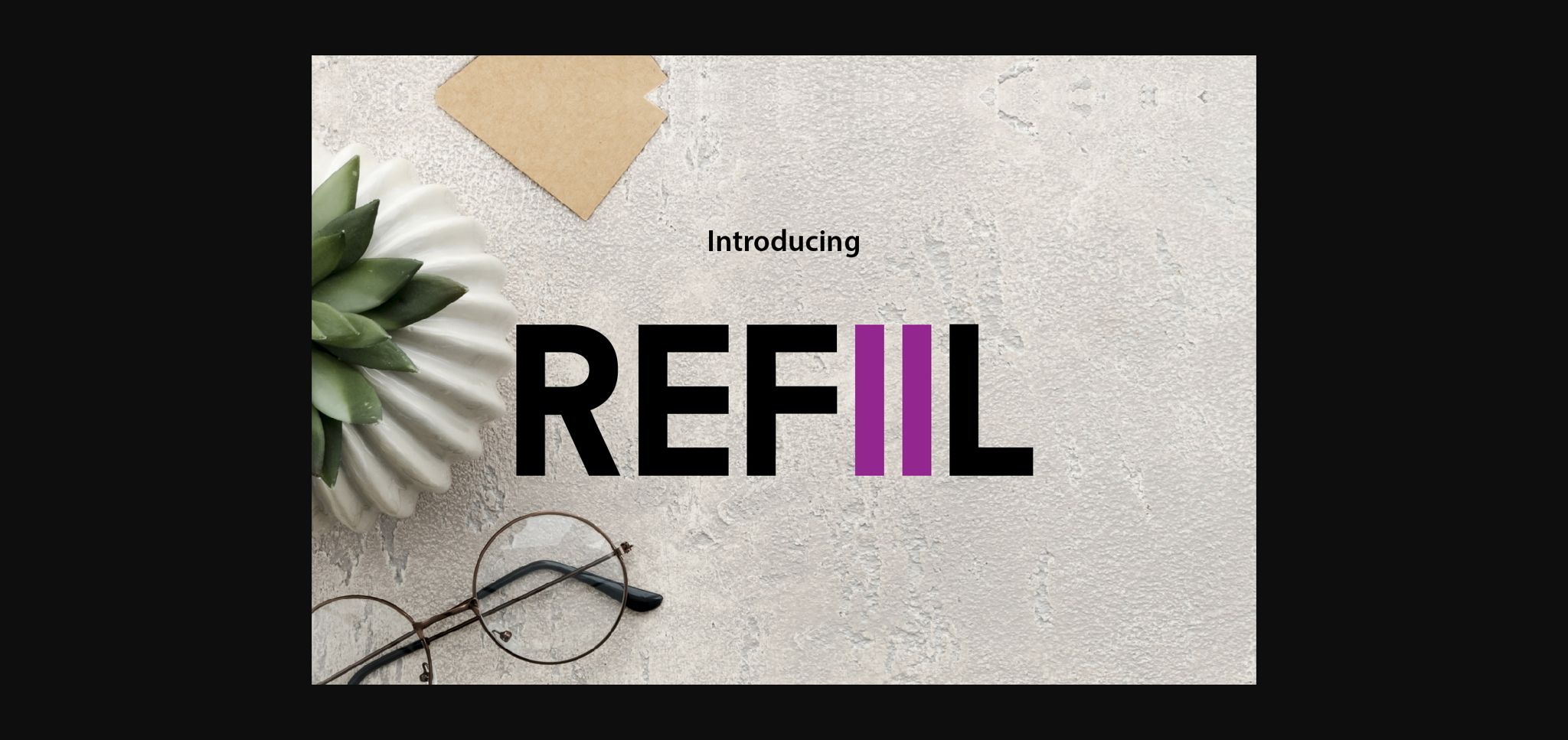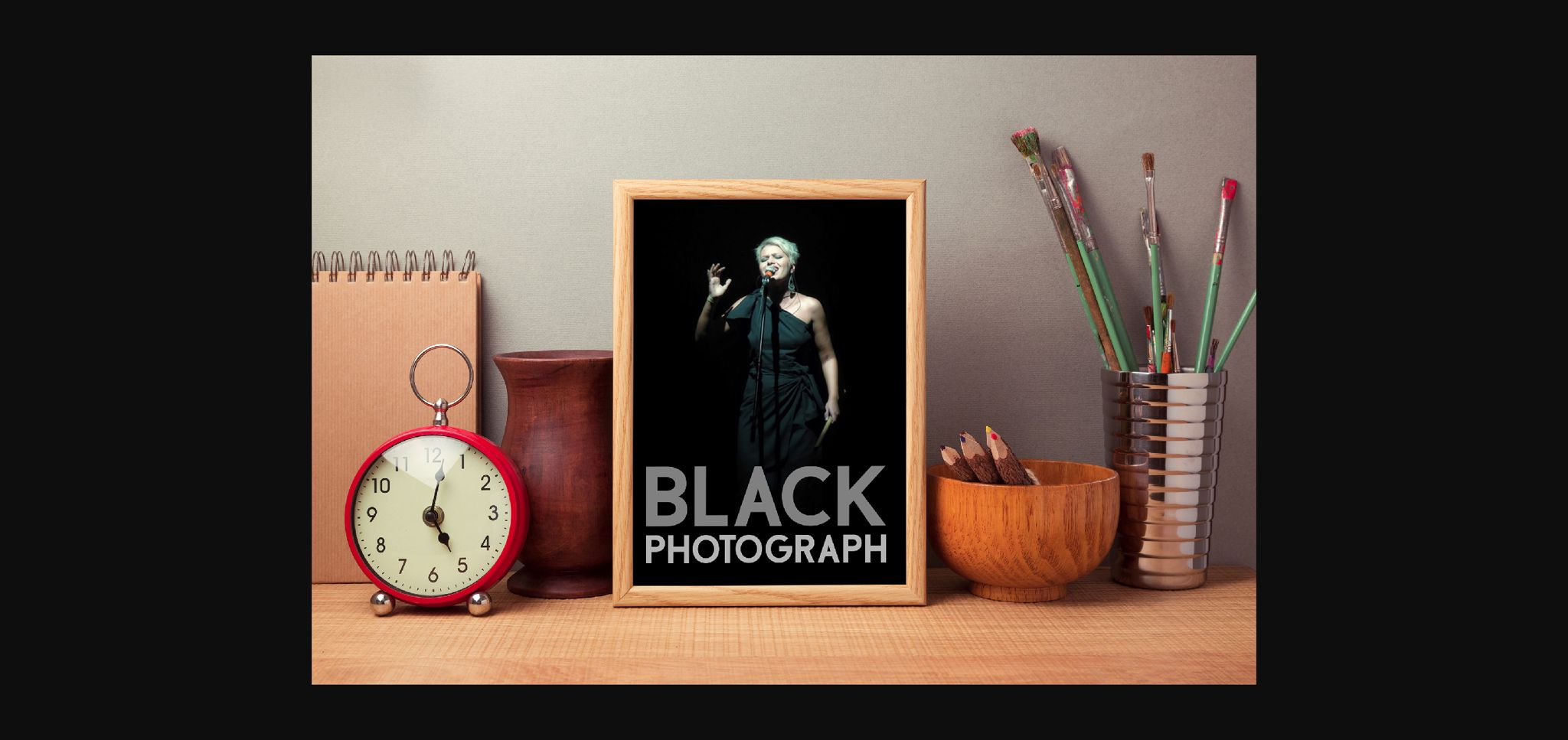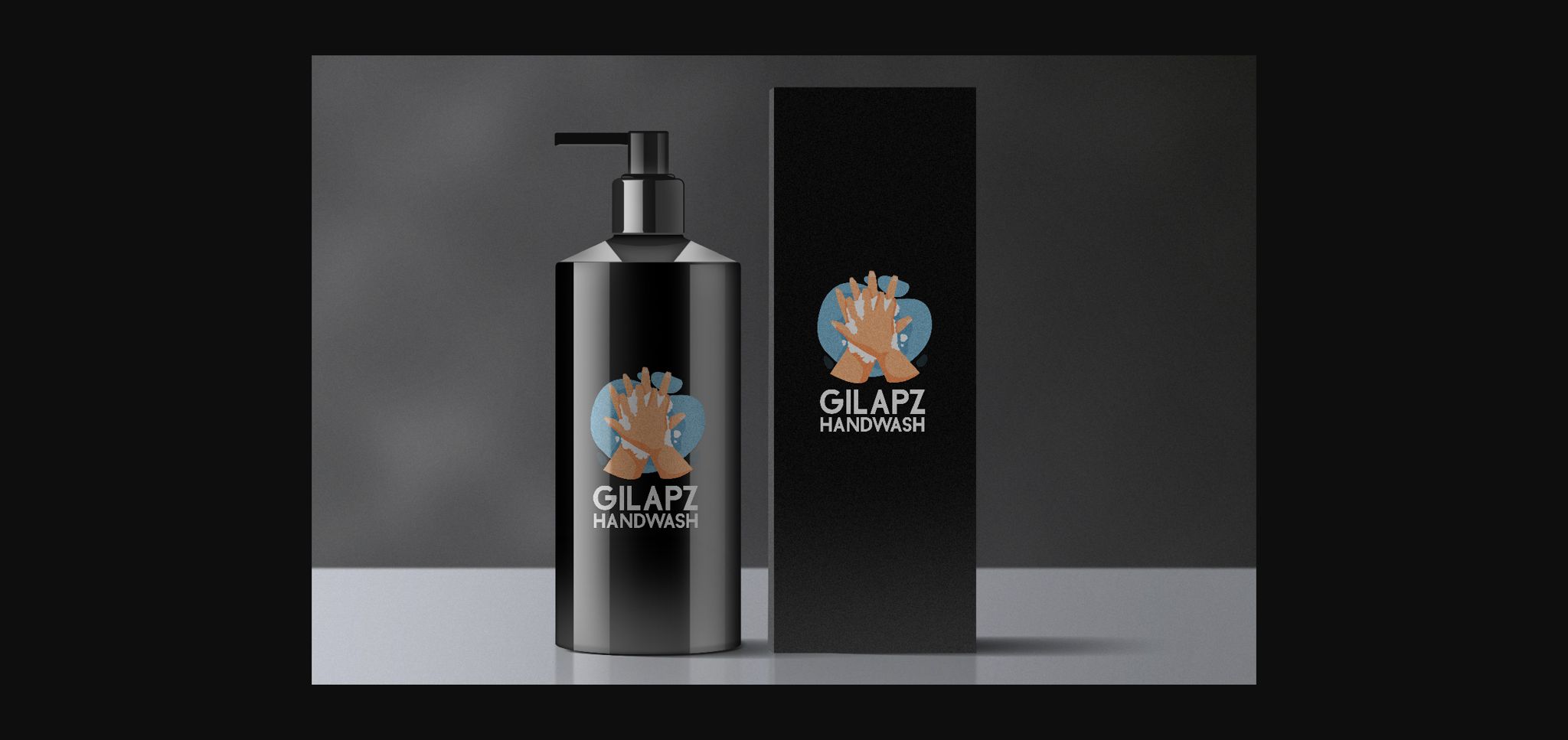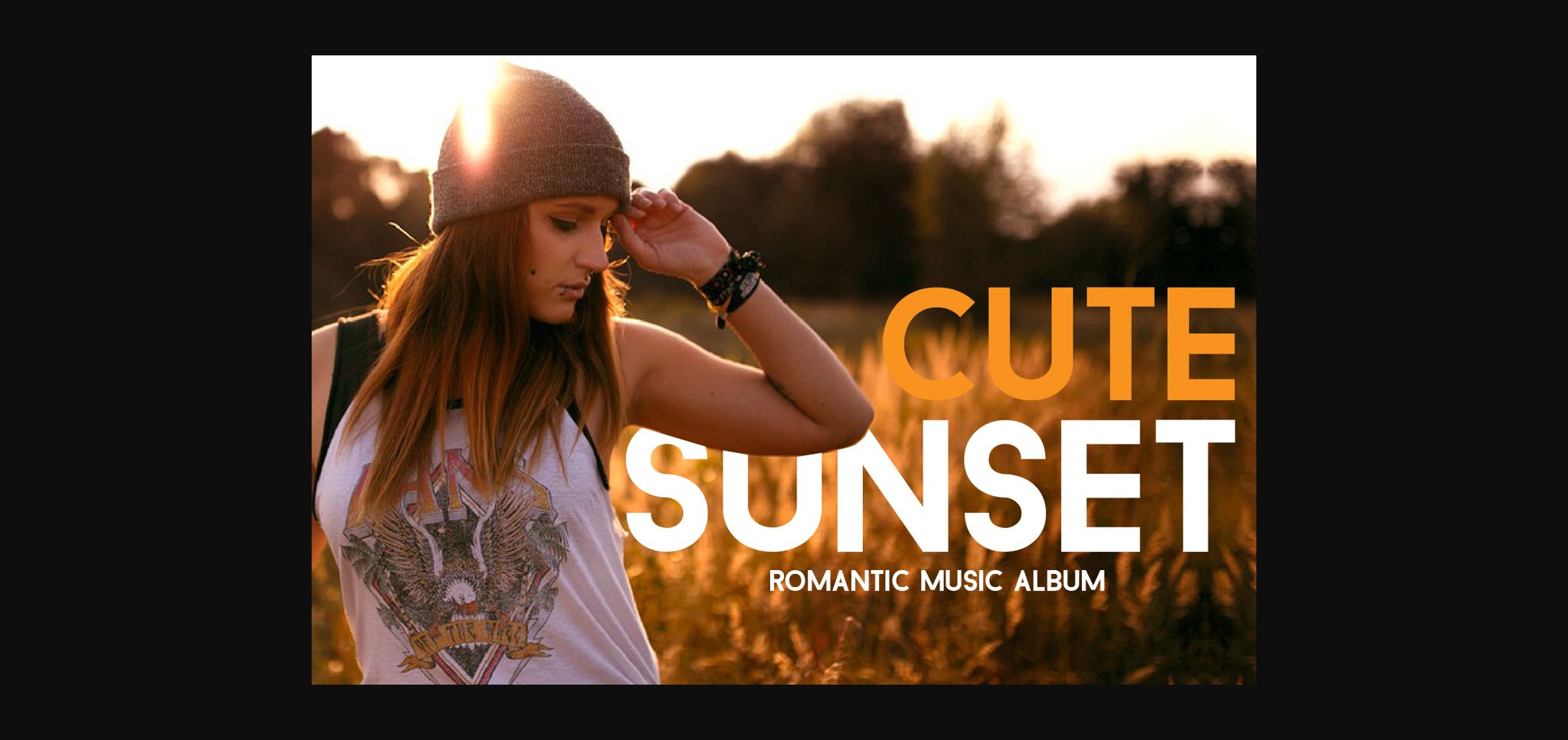
About Refiil Font
Refiil is a simple and neat sans serif font. It can easily be matched to an incredibly large set of projects, so add it to your creative ideas and notice how it makes them stand out!